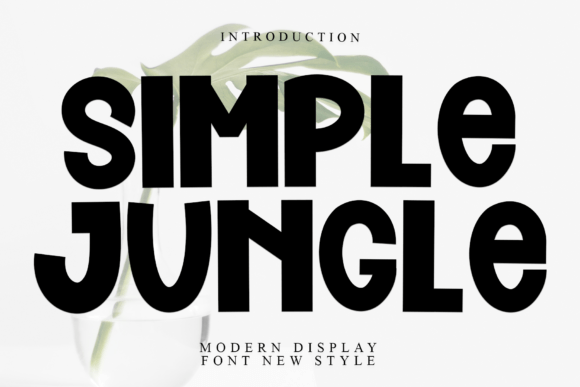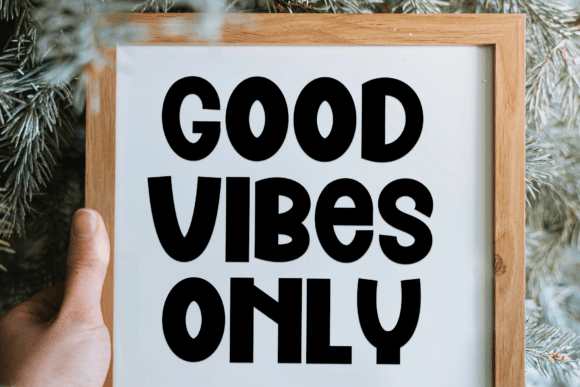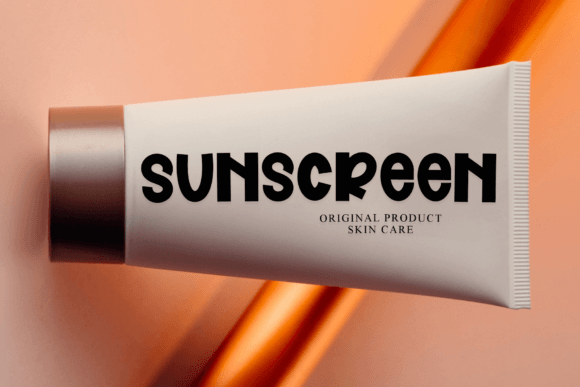
Simple Jungle Font
About the Simple Jungle Font
Elevate your designs with Simple Jungle Font, a font that combines sophistication with readability. Simple Jungle Is a beautiful display font. With its minimalist and easy-to-read design, Simple Jungle works well across a variety of projects, from branding and social media graphics to invitations, logos, and everyday print materials. Its modern, clean aesthetic suits both professional and creative contexts.
Simple Jungle Font Usage Examples
Simple Jungle Font Example